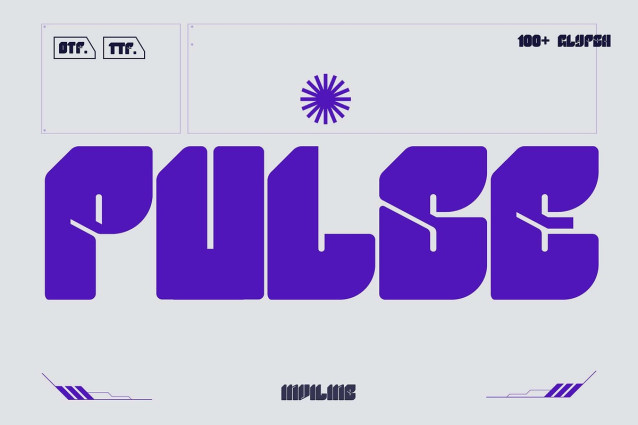
Pulse Font
Pulse Font – Y2K Display Font. Bring a touch of retro-futuristic to your designs with this meticulously crafted font collection. Perfect for adding a Y2K vibes to your branding, packaging, logos, and more.